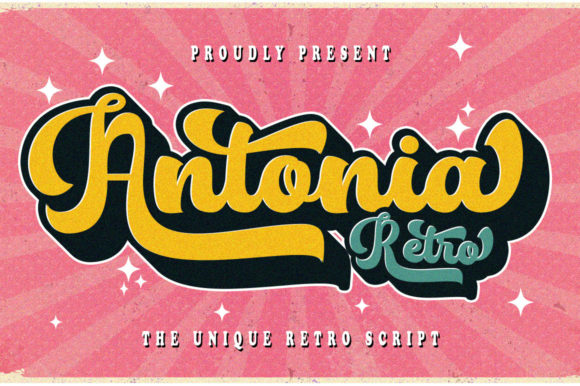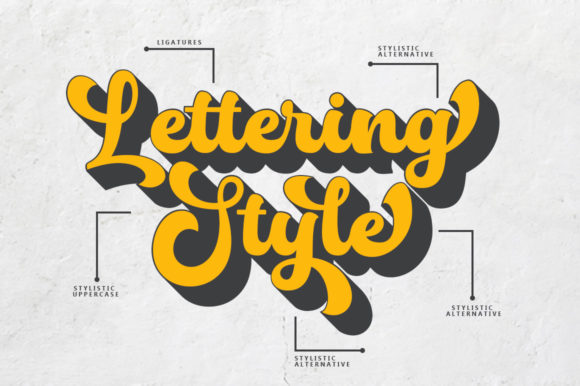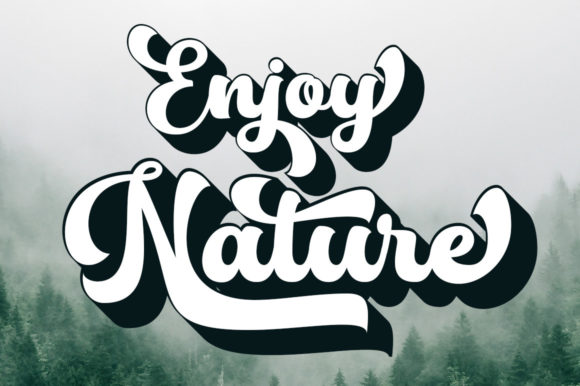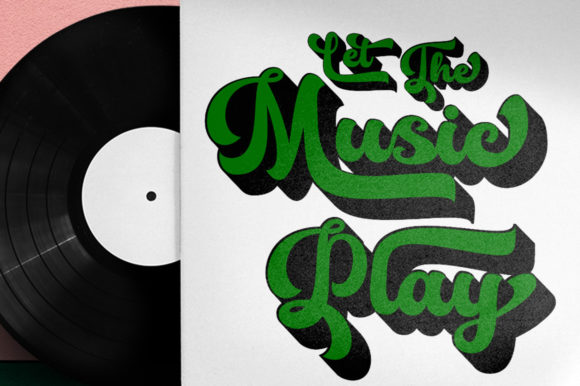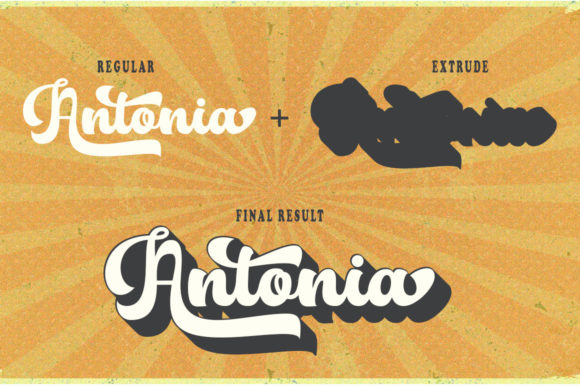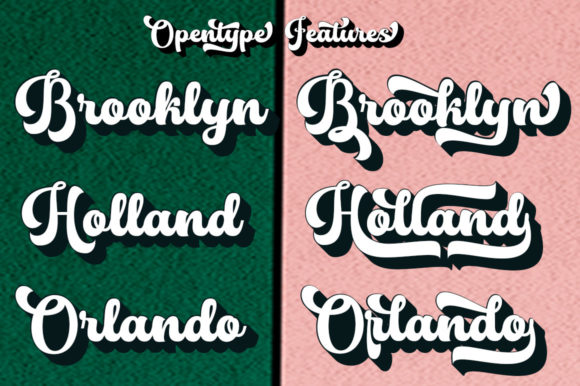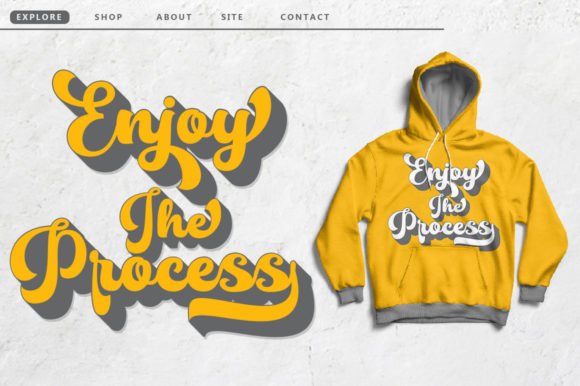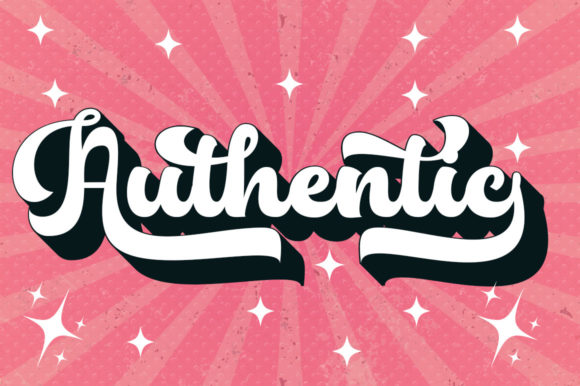
Antonia Retro Font
About Antonia Retro Font
Introducing Antonia Retro – a bold retro script font that takes you back to the ’60s. This typeface has an extruded version so you can easily create retro-effect fonts. It is suitable to be applied especially to logos, and various other formal forms such as invitations, labels, logos, magazines, books, greeting/wedding cards, packaging, fashion, make-up, stationery, novels, labels, or any advertising purposes.